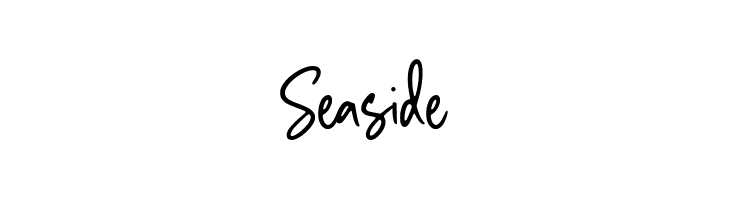
A playful, casual handwritten font with fluid strokes and a relaxed appearance.
A playful, elegant script font with a handwritten style.
A bold, brush-style script font with dynamic and expressive strokes.
An elegant, flowing script font with graceful loops and swashes.
A flowing, cursive script font with elegant, connected letters.
A playful, hand-drawn font with a whimsical, organic style.
A fluid, handwritten-style font with a personal and expressive touch.
A playful, handwritten font with smooth, rounded edges and a casual style.
A playful, casual handwritten font with smooth curves and a friendly appearance.
A playful, quirky font with tall, narrow letterforms and rounded edges.